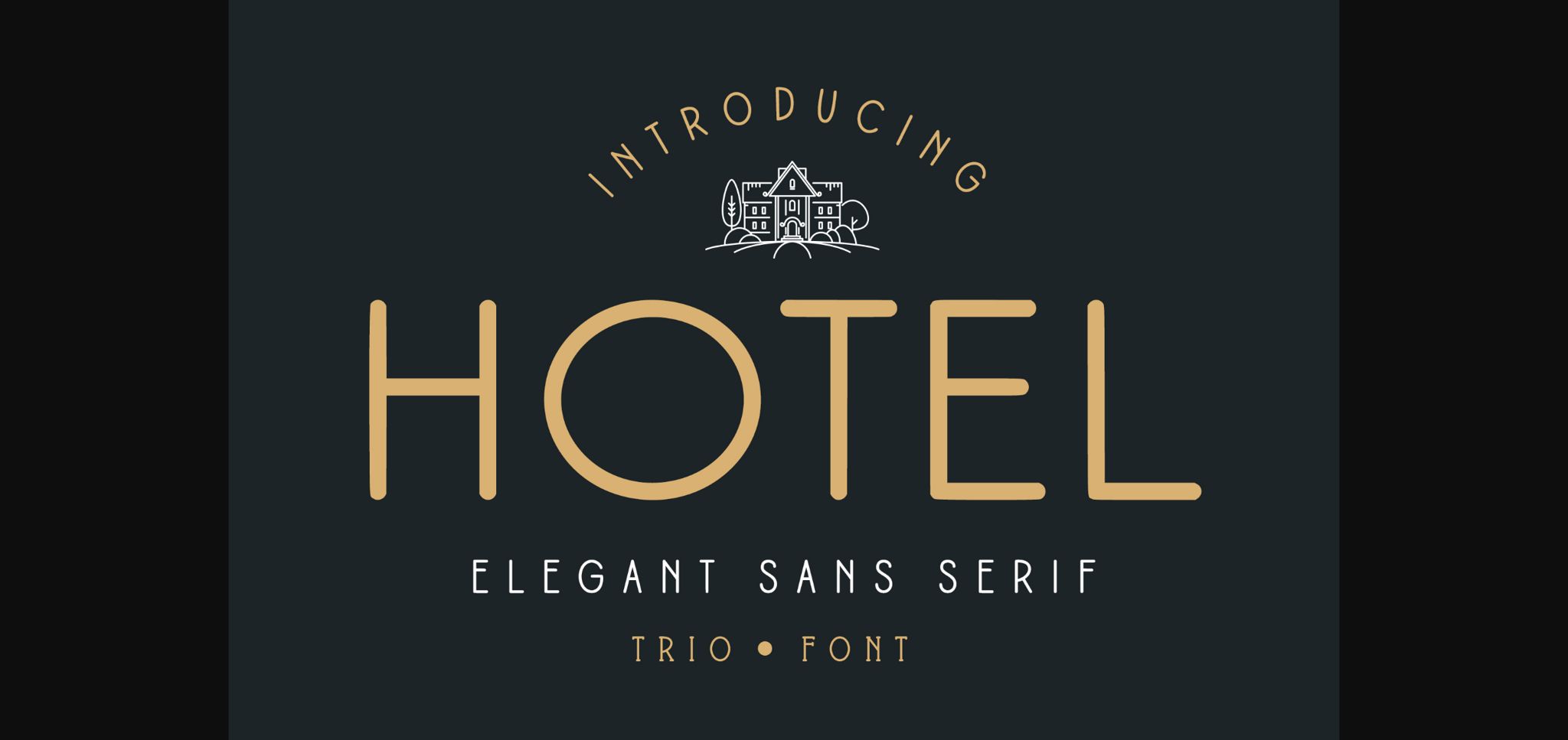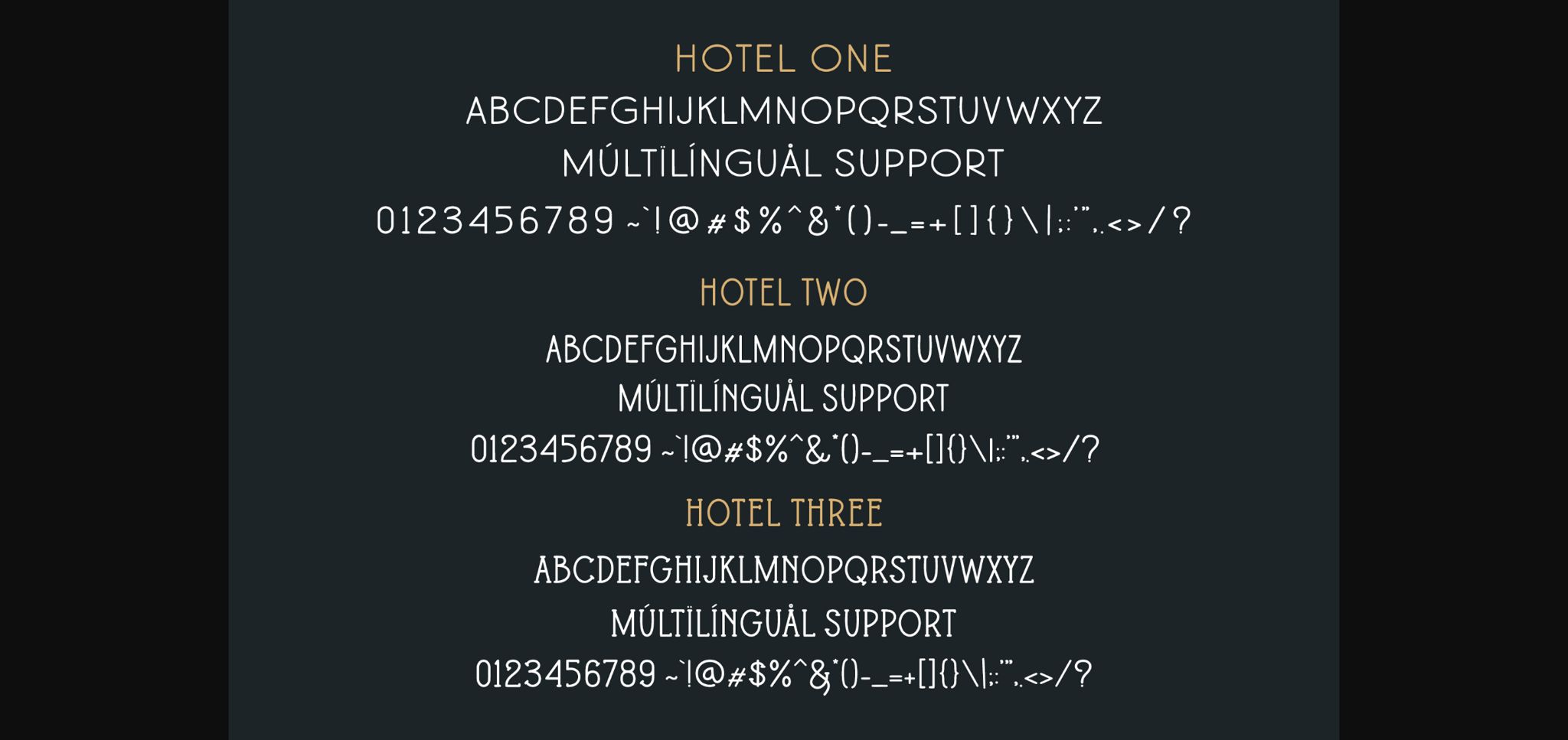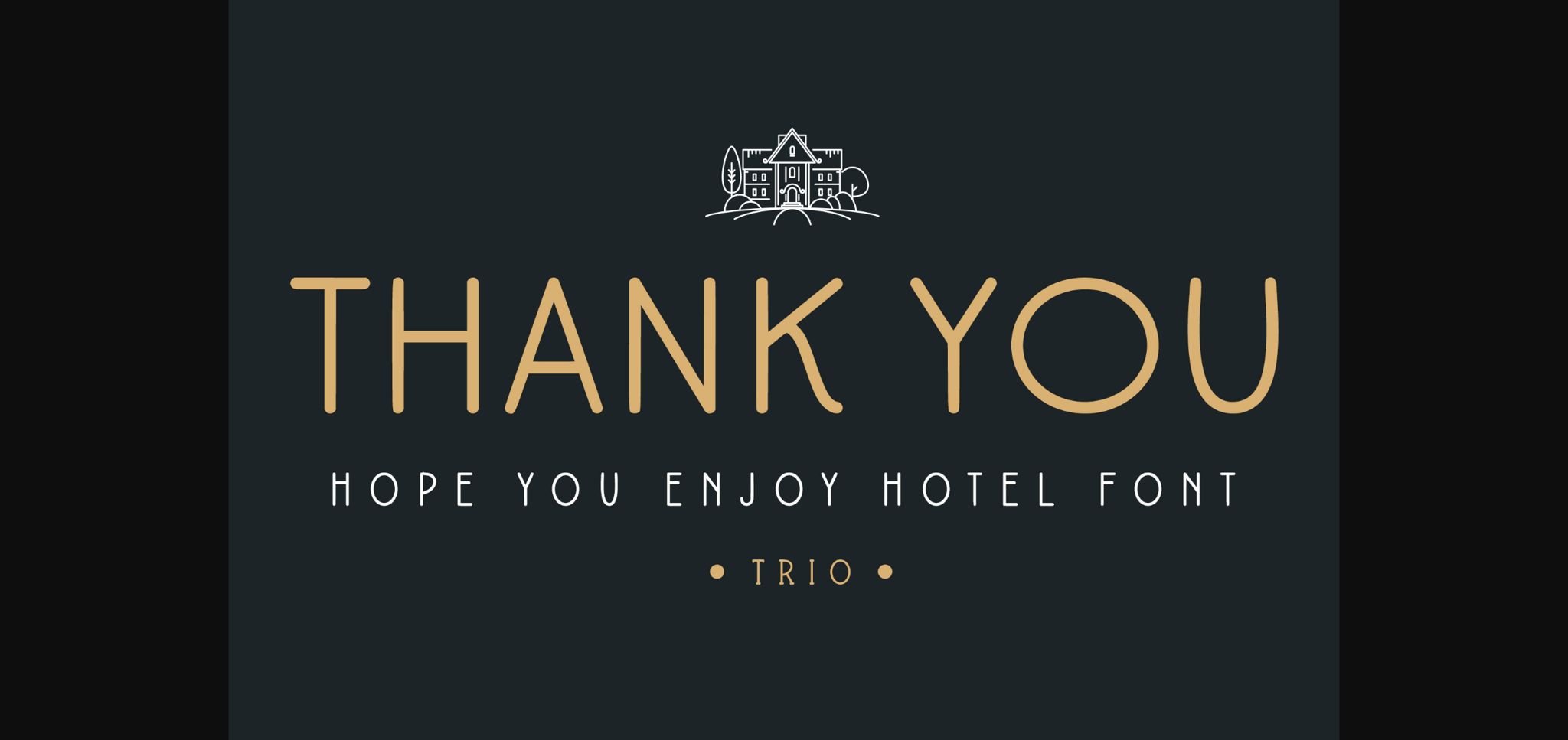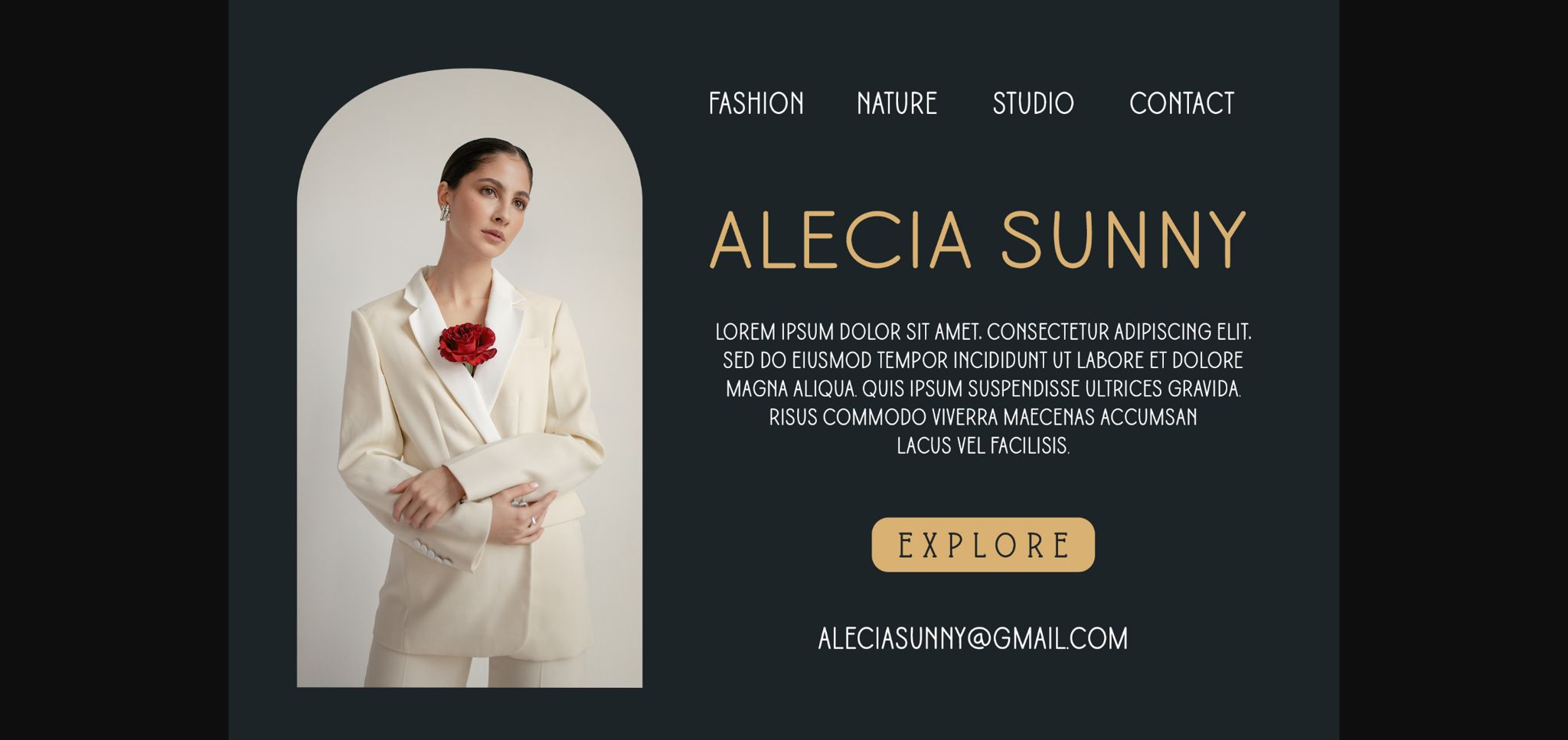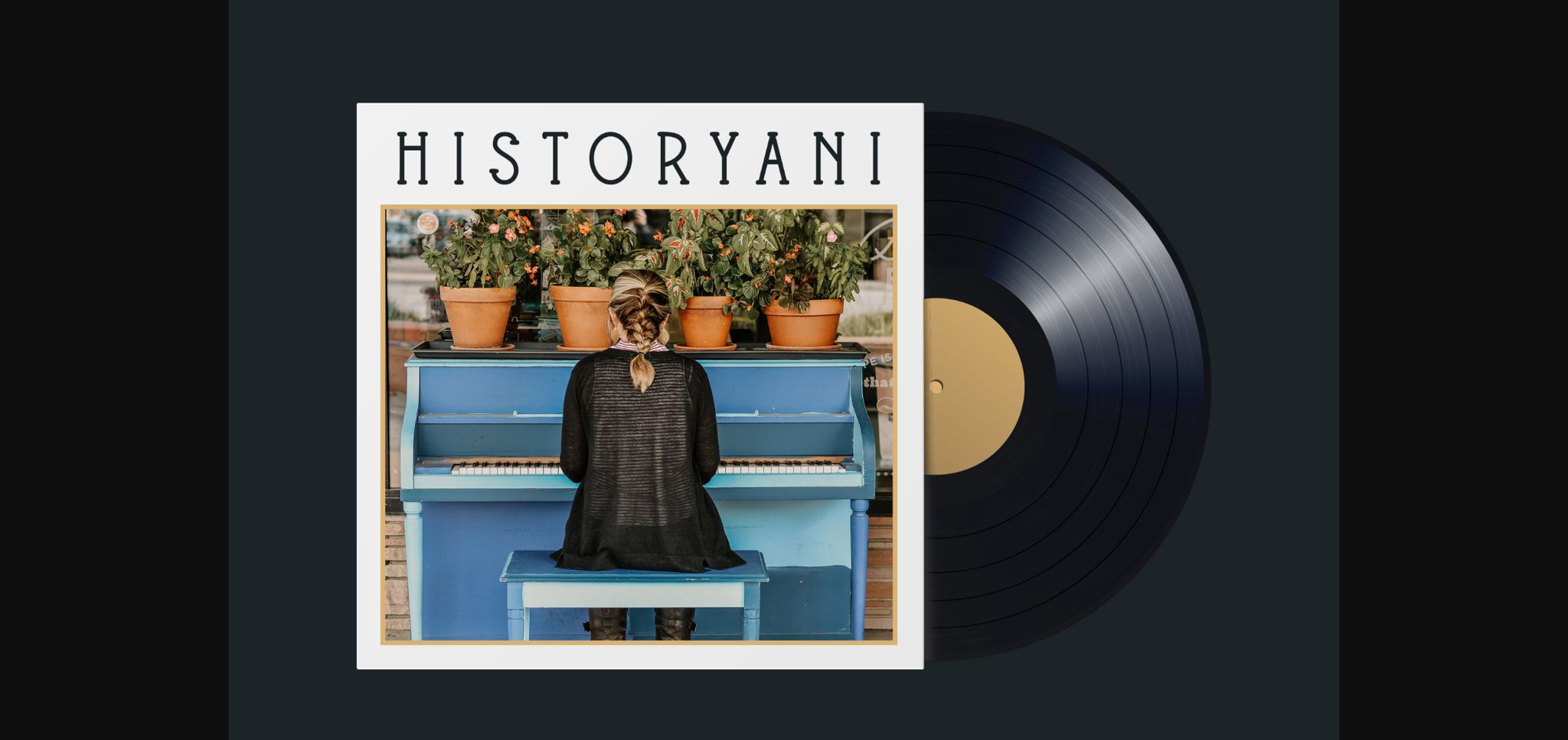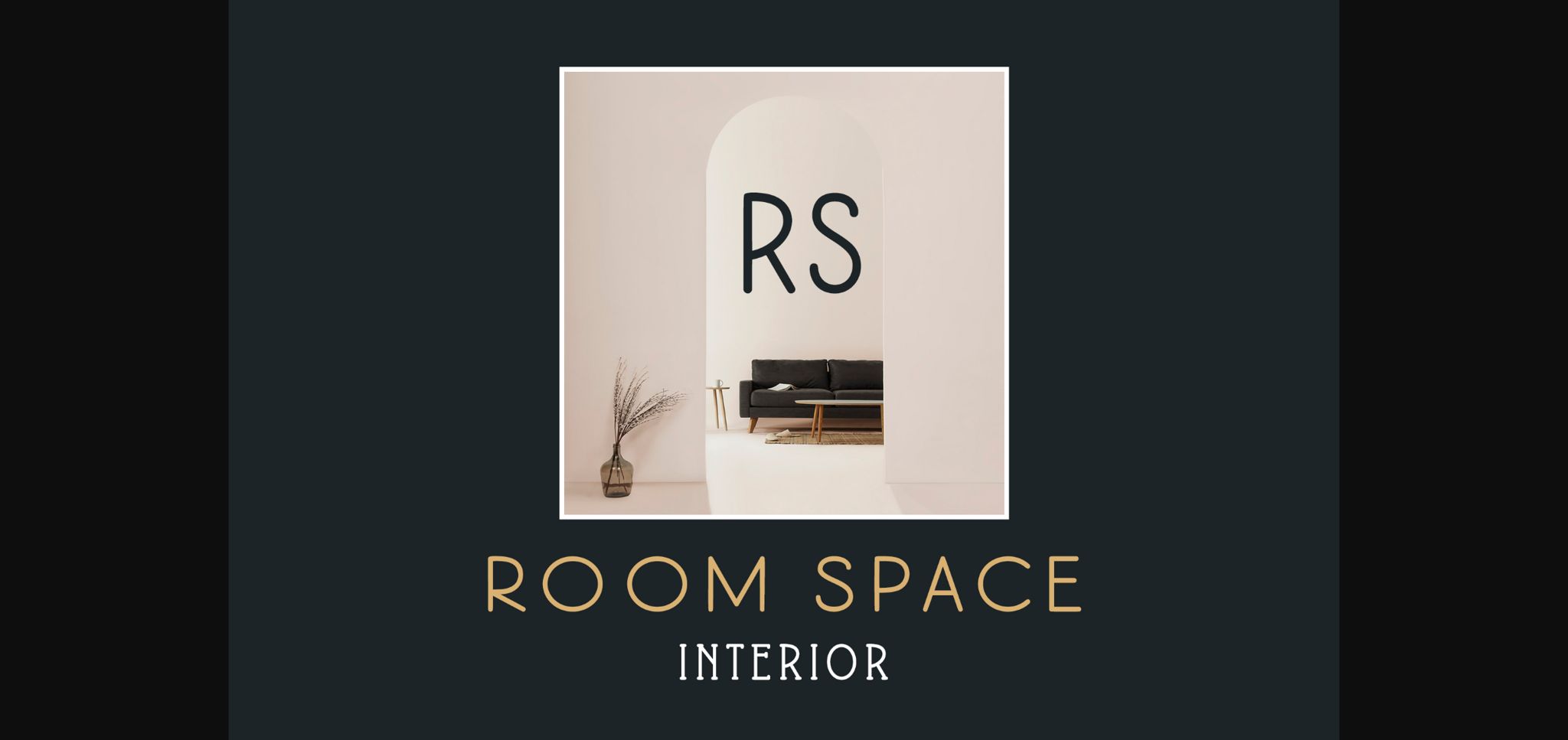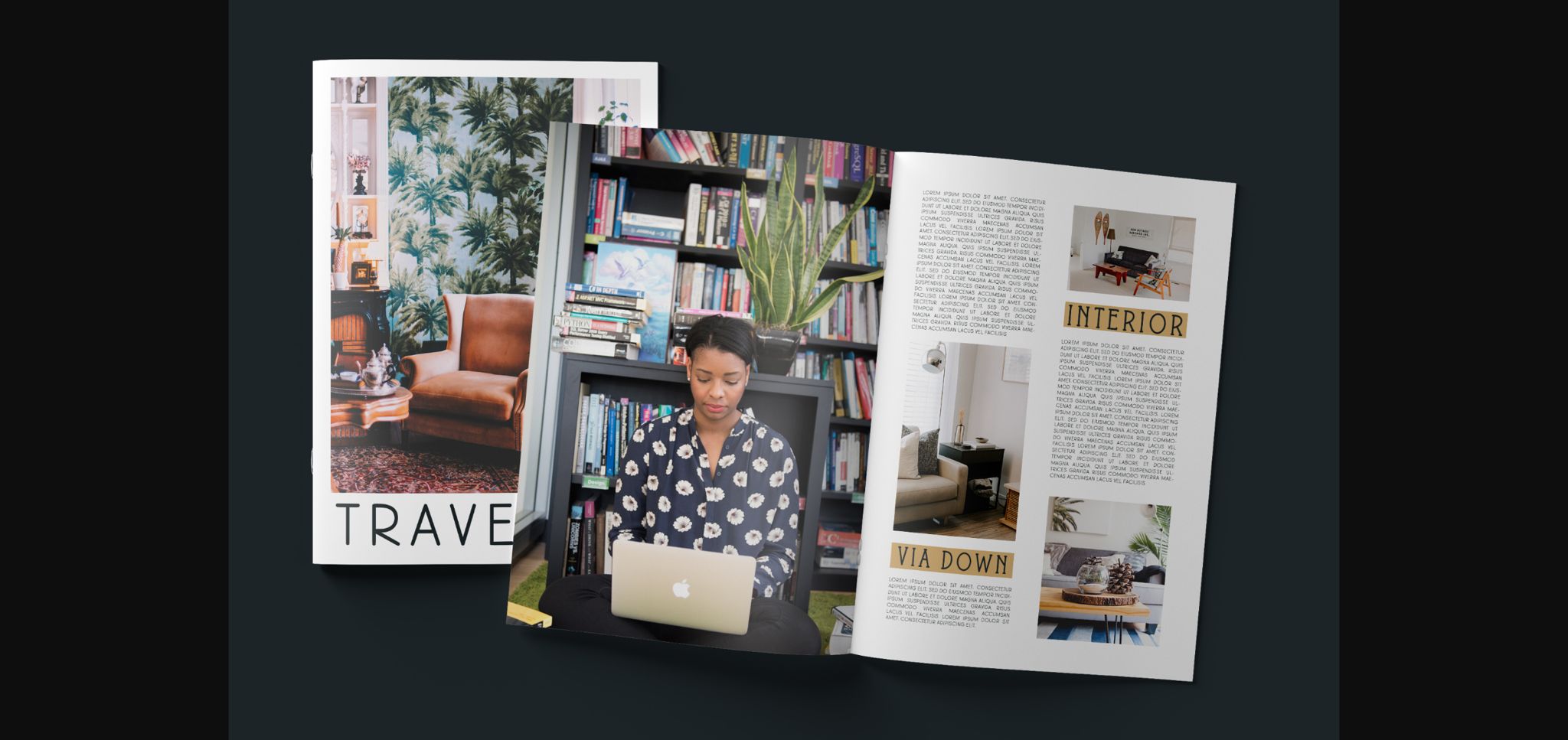
About Hotel Font
Hotel is a beautiful and versatile duo font (serif and sans serif). It can effortlessly be matched to a large set of projects, so add it to your creative ideas and notice how it makes them stand out!